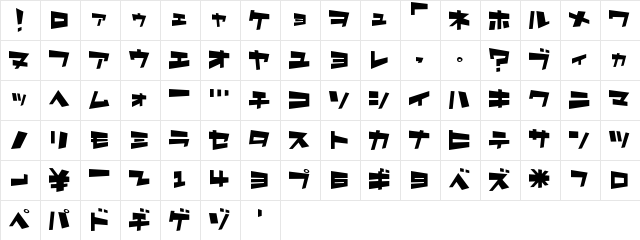
I2As twis Font Preview
I2As twis
Design Context for I2As� Typeface
I2As� is a composed and adaptable typeface that performs quietly and consistently across a wide range of design contexts.